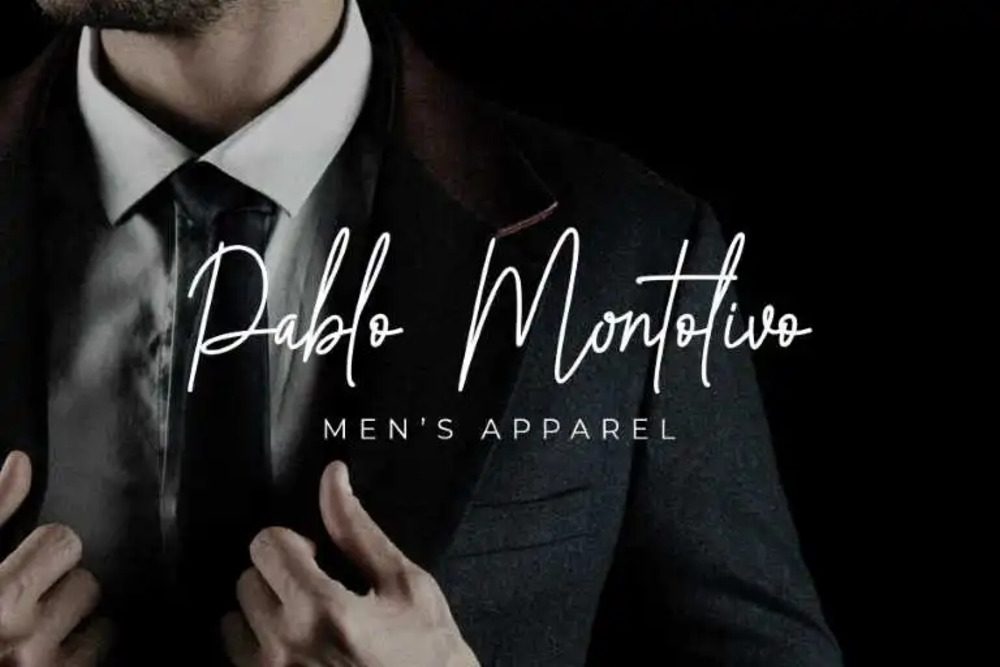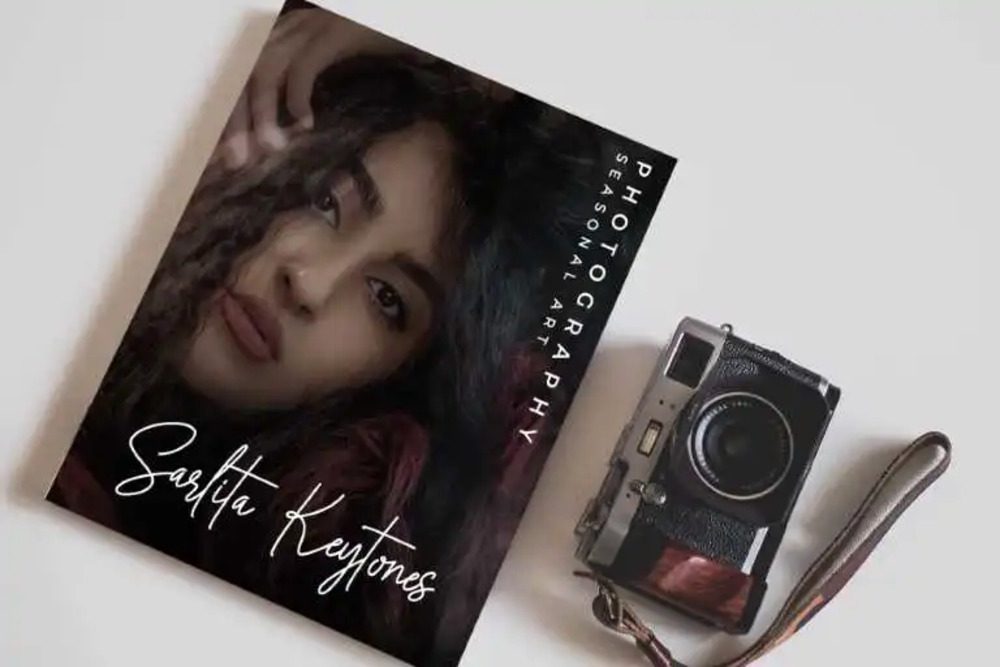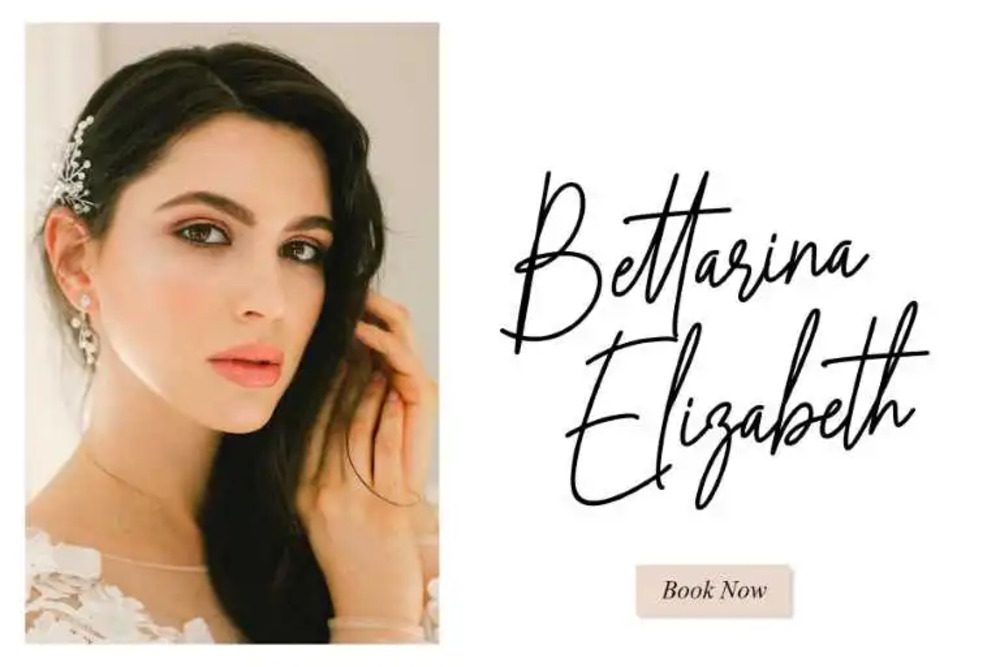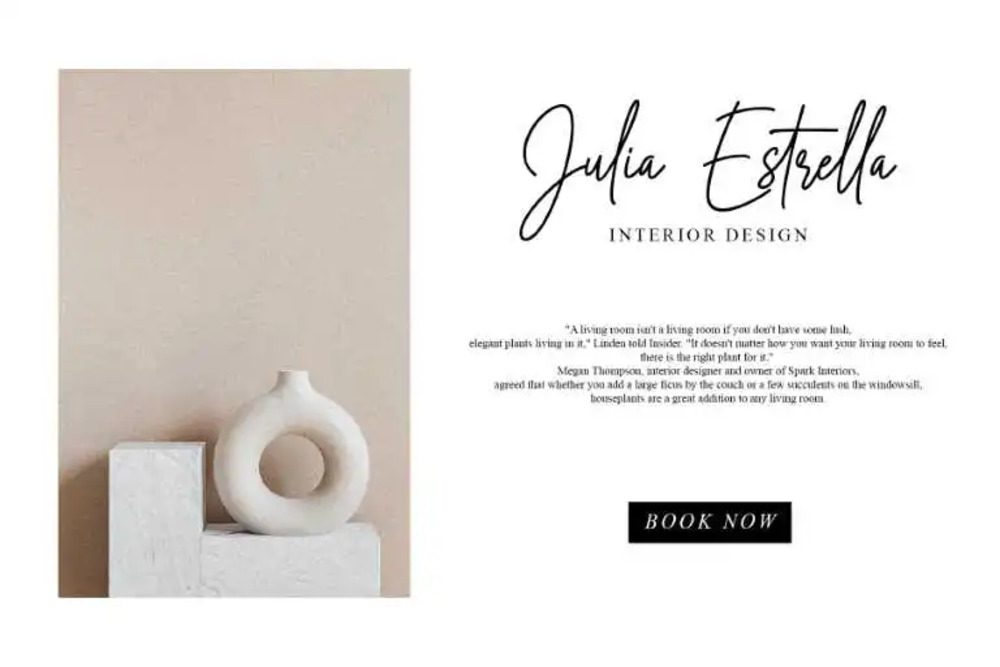
Arabellia Signature Font
Arabellia Signature Font is a luxurious and graceful script typeface that showcases the beauty of handwritten artistry. With its delicate curves and fluid strokes, it’s perfect for adding sophistication to logos, branding, invitations, and high-end design projects. Arabellia features an array of ligatures and alternates, allowing for effortless customization. This font strikes a perfect balance between modern elegance and timeless charm, making it an ideal choice for creating stunning, personalized designs.